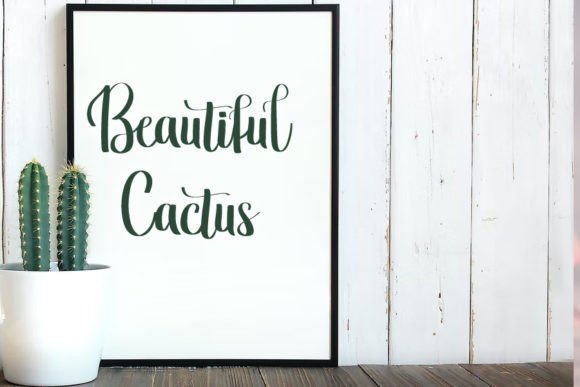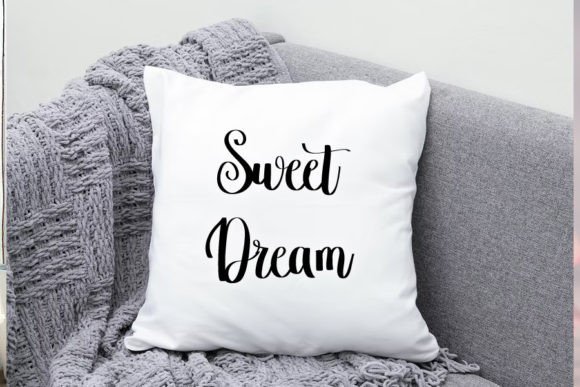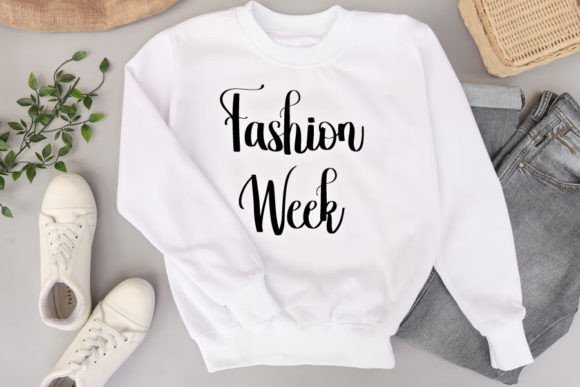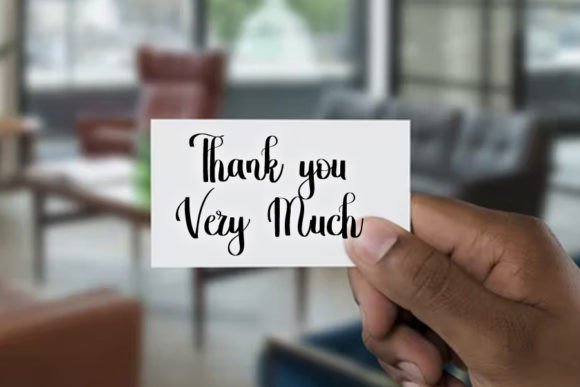
Introduction to Filosofy Font
Filosofy is a fresh and beautiful handwritten font, good for your design purposes such as Youtube banners, Cover Logo Mockups, Wedding Invitations, Id Cards, Flayer, and Crafts.
By using this font, your business will progress and develop Apart from that, this font is simple and unique.
Key Features of Filosofy Font
Why Choose Filosofy Font?